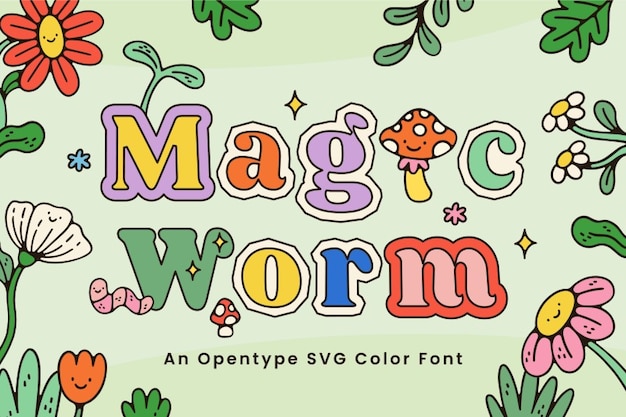
Magic Worm Font
"Magic Worm" is a joyful, playful font perfect for kids' projects, with a fun, cartoonish style that captures the whimsy of childhood. Its rounded, quirky letters and mushroom-inspired shapes add a touch of fantasy and adventure. Ideal for children's books, party invitations, or any design that needs a colorful, lighthearted vibe, this font brings imagination to life.